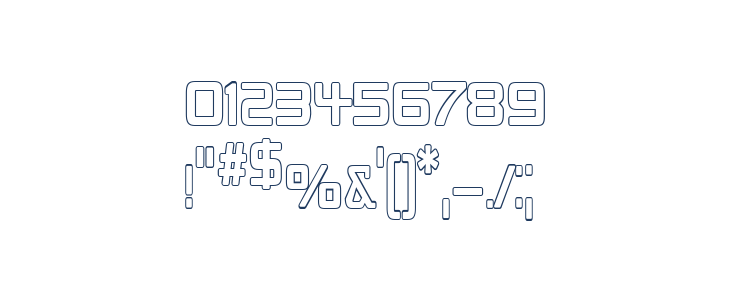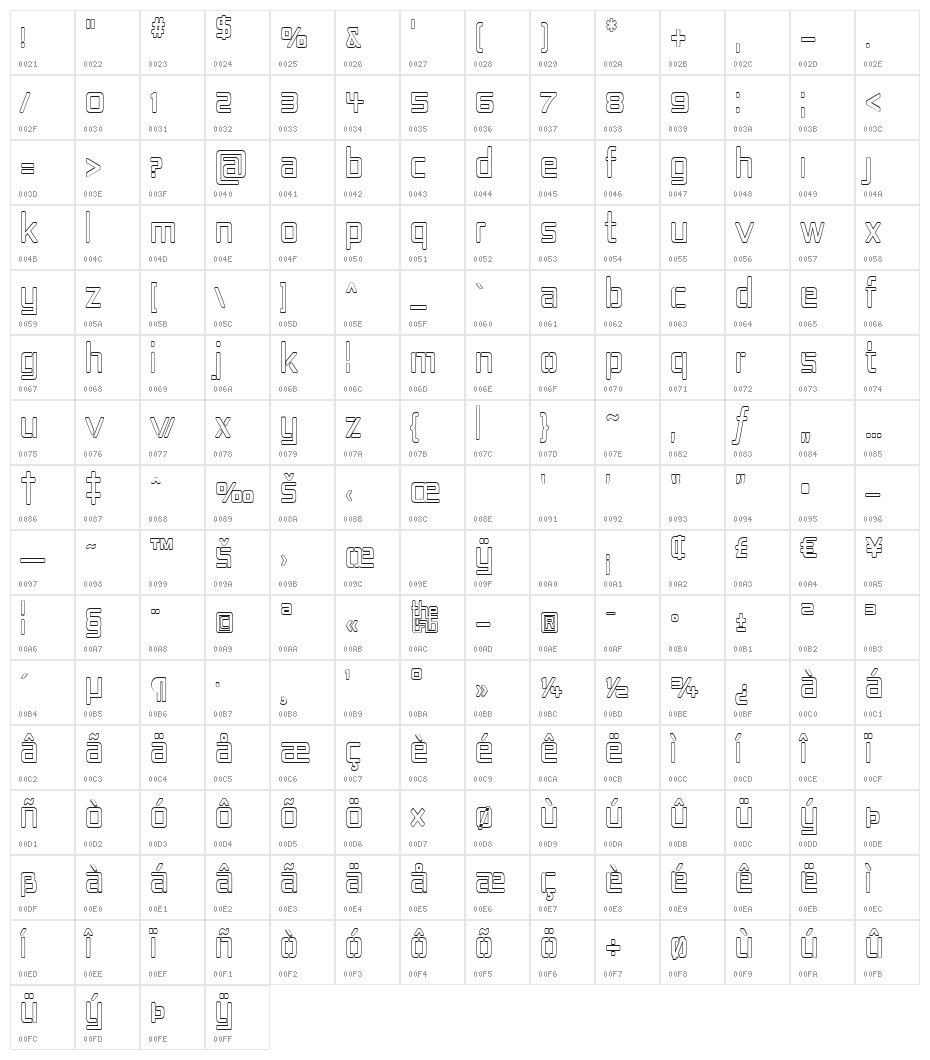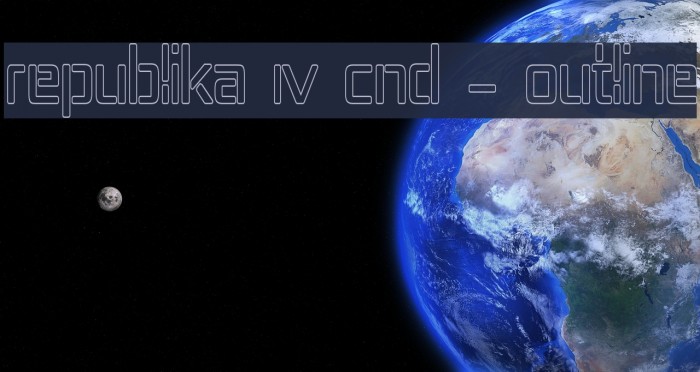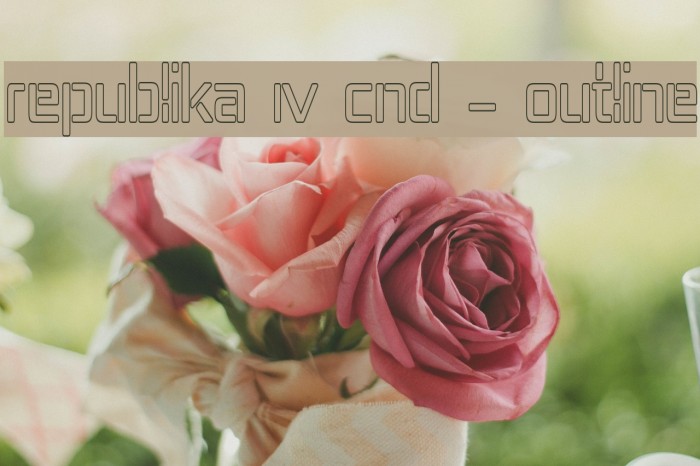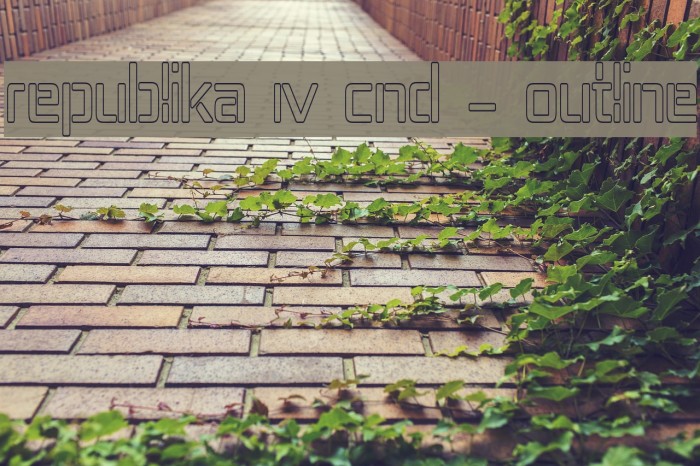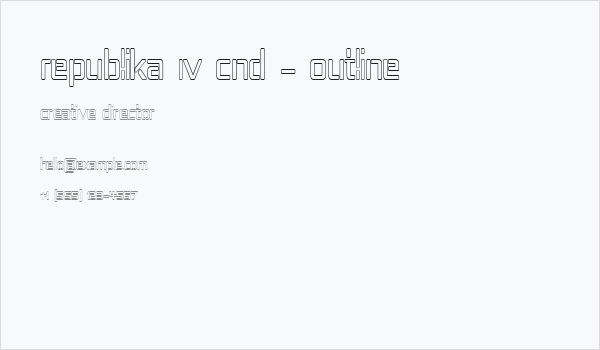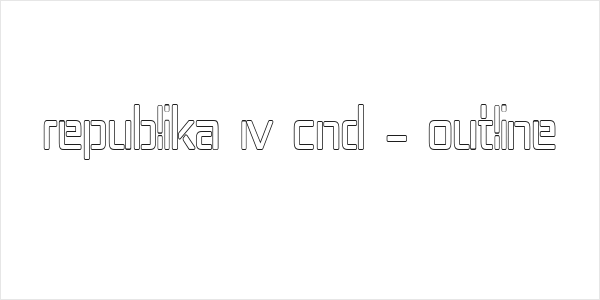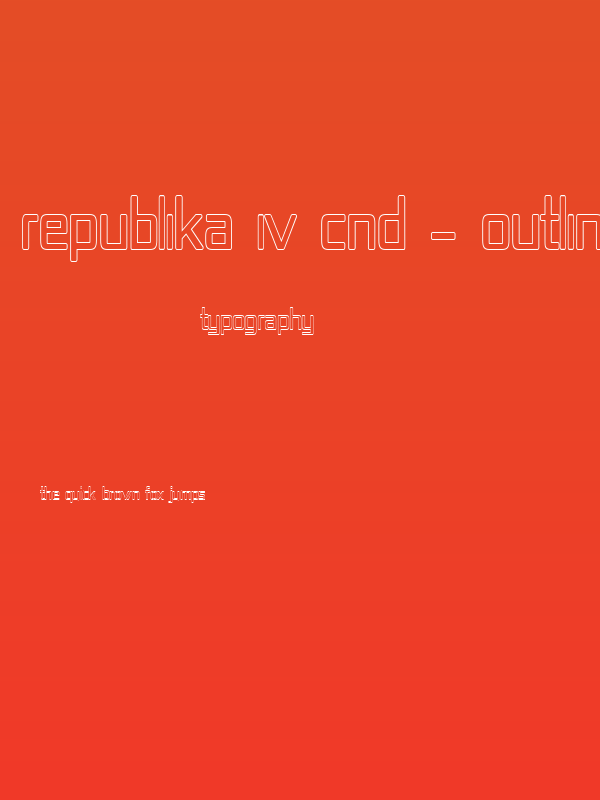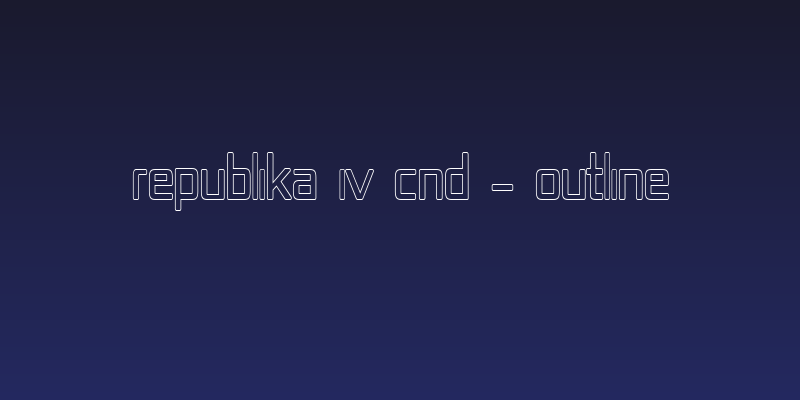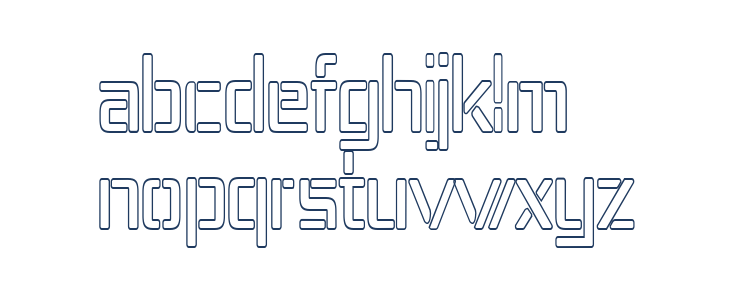
Republika IV Cnd - Outline Font
Republika IV Cnd - Outline Description
This font features a modern, geometric outline style with a condensed structure. Each character is crafted with a consistent line thickness, creating a uniform and cohesive appearance. The design is minimalistic yet bold, making it stand out in various applications. The uppercase and lowercase letters maintain a similar height, enhancing readability. Numbers and special characters are designed with the same attention to detail, ensuring a harmonious look across all elements. The font's outline nature gives it a unique aesthetic, suitable for projects that require a futuristic or tech-inspired feel.